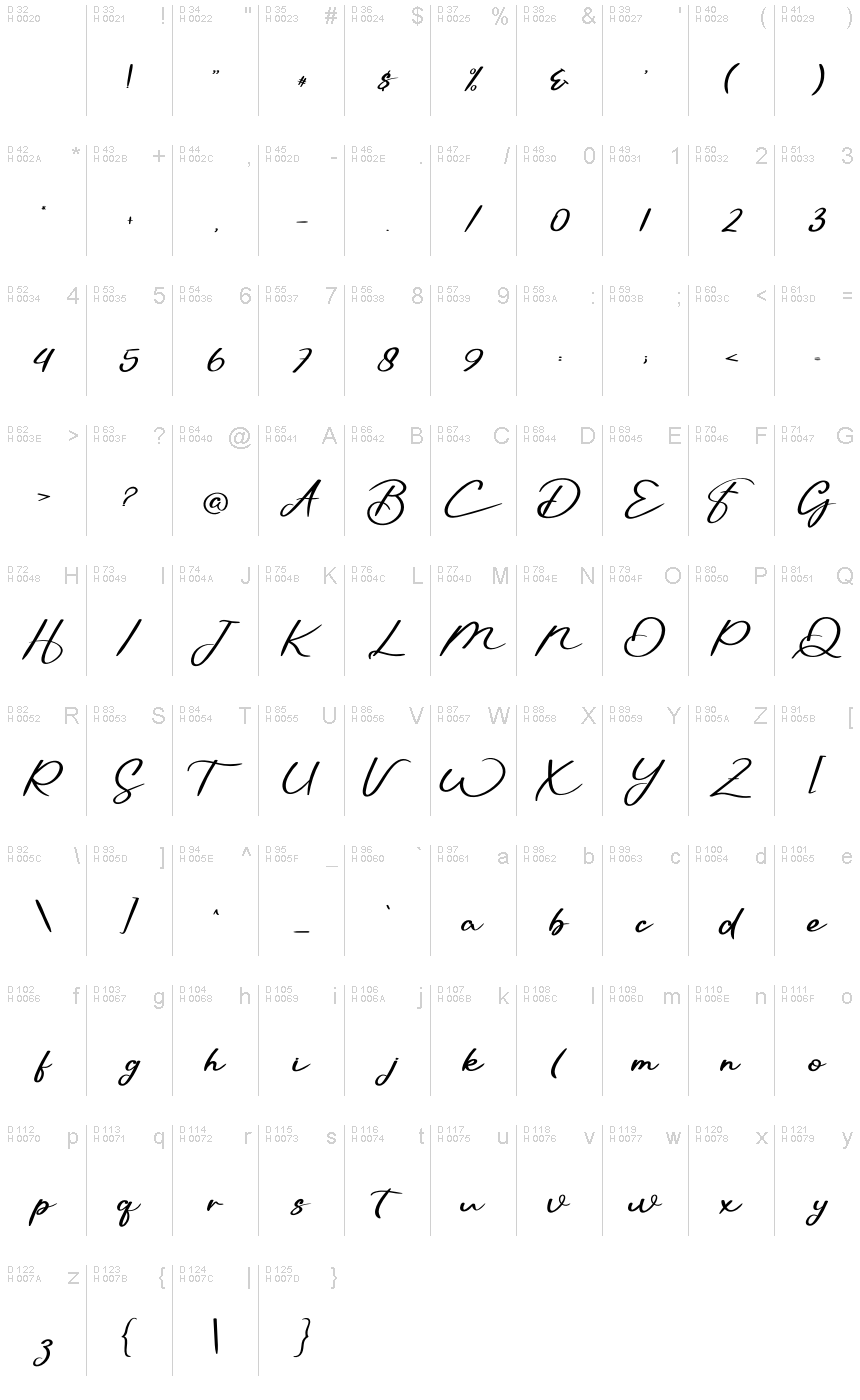
The Amsterdam
The Amsterdam font is a high quality handwritten font that is designed by Etik Fatimah and is available for personal use. The free version provides all uppercase and lowercase letters and a few special characters too.
This handwritten font is casual and pretty with swashes. Can used for various purposes such as logos, wedding invitation, heading, t-shirt, letterhead, signage, label, news, posters, badges etc.